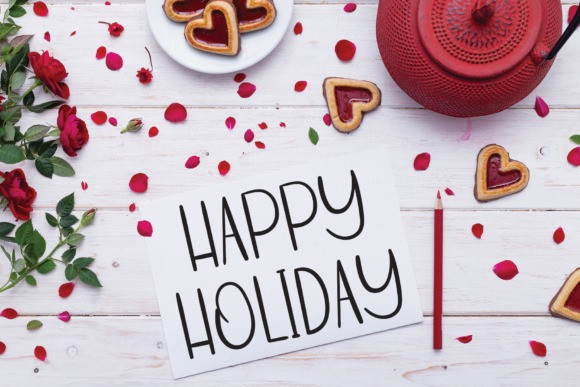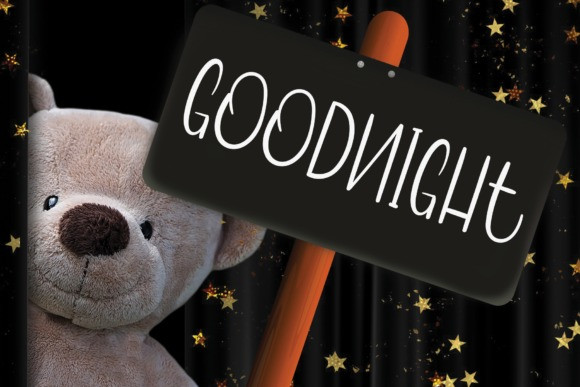
Homepark Font
Homepark Font is a friendly and unique handwritten font. Fall in love with its ravishing style, and use it to create beautiful designs.